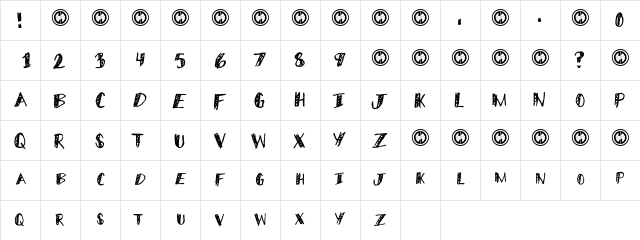
Middle Schooler Regular
Design Context for Middle Schooler Typeface
Middle Schooler is a composed and adaptable typeface that performs quietly and consistently across a wide range of design contexts.